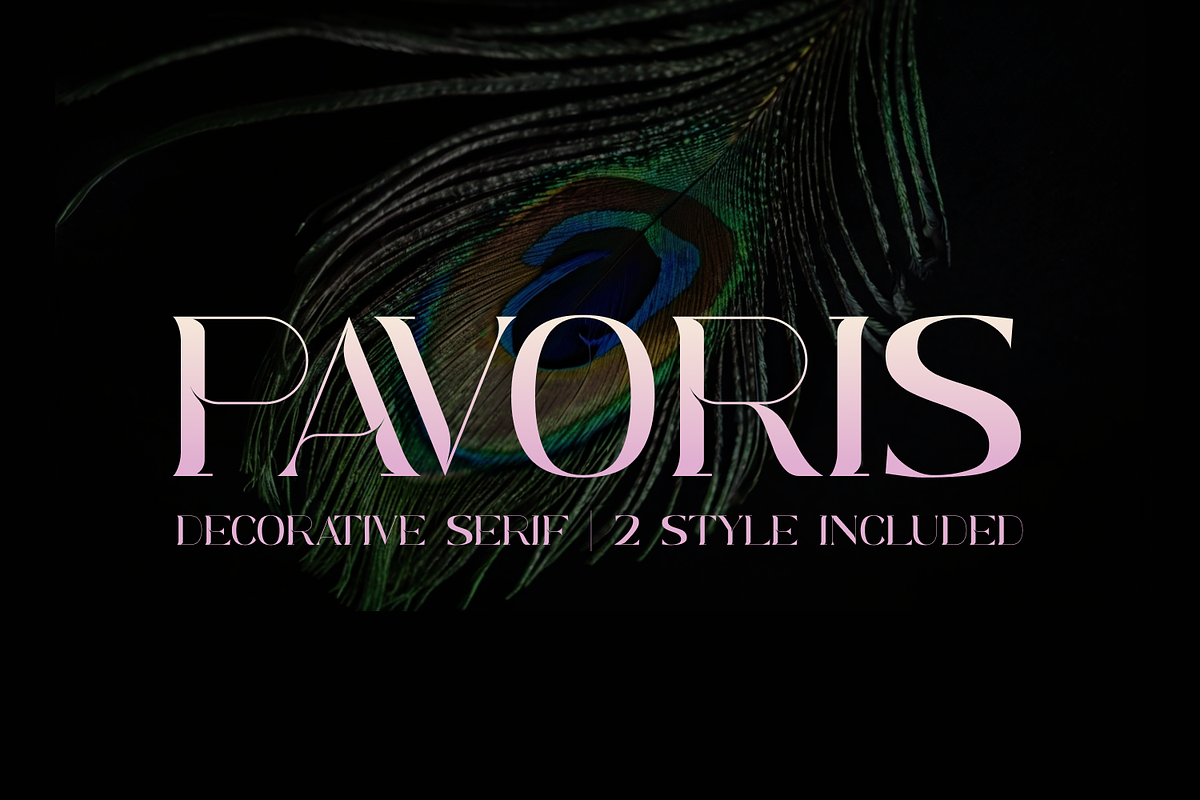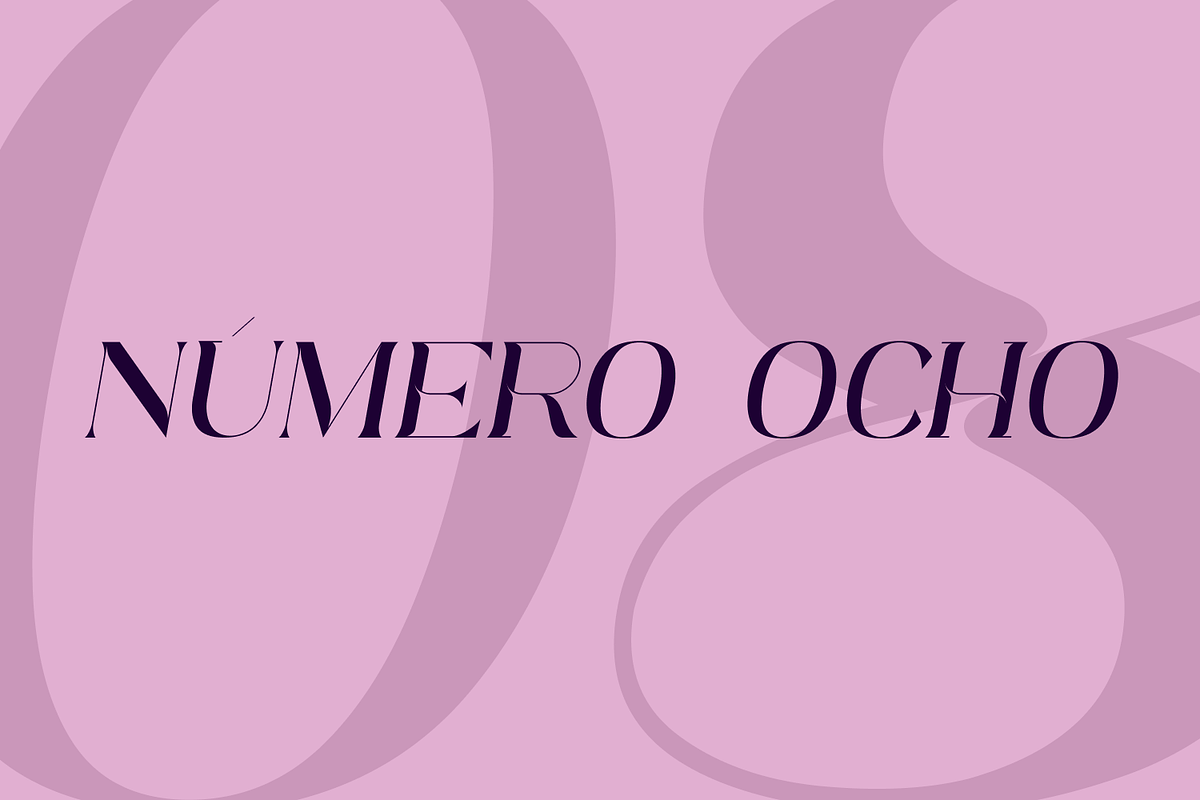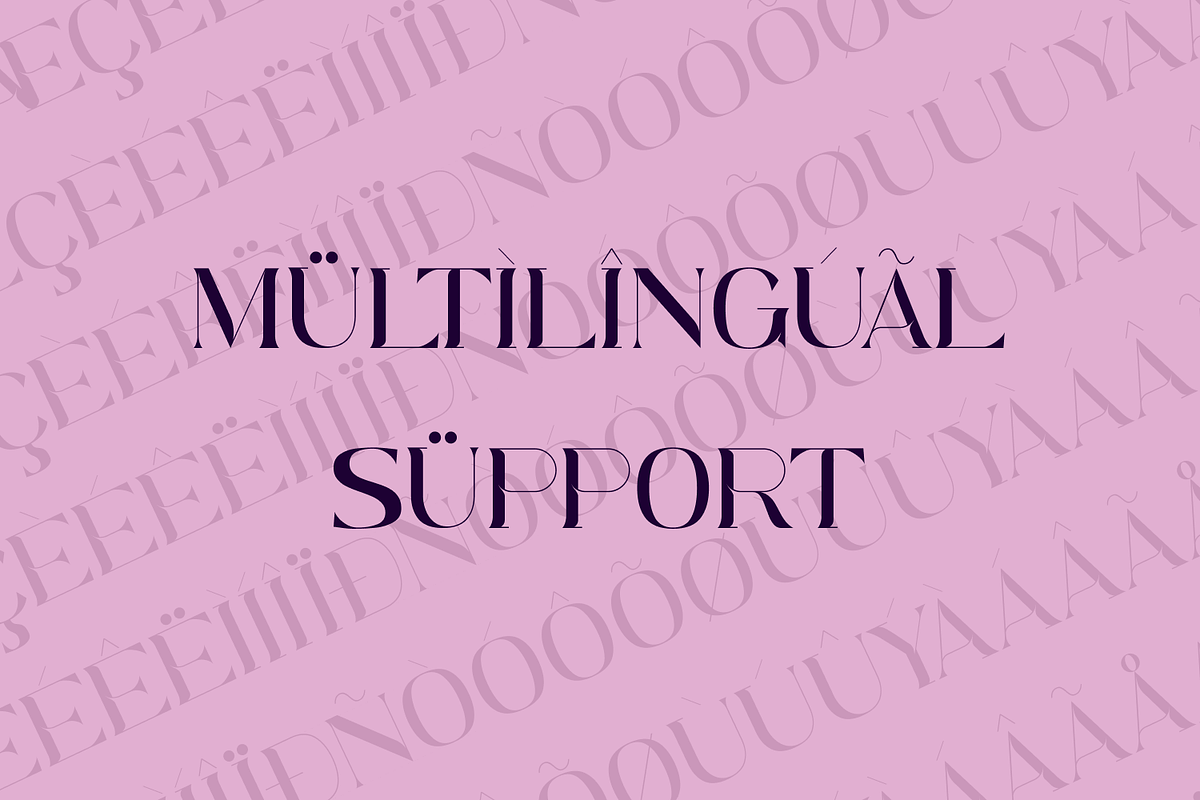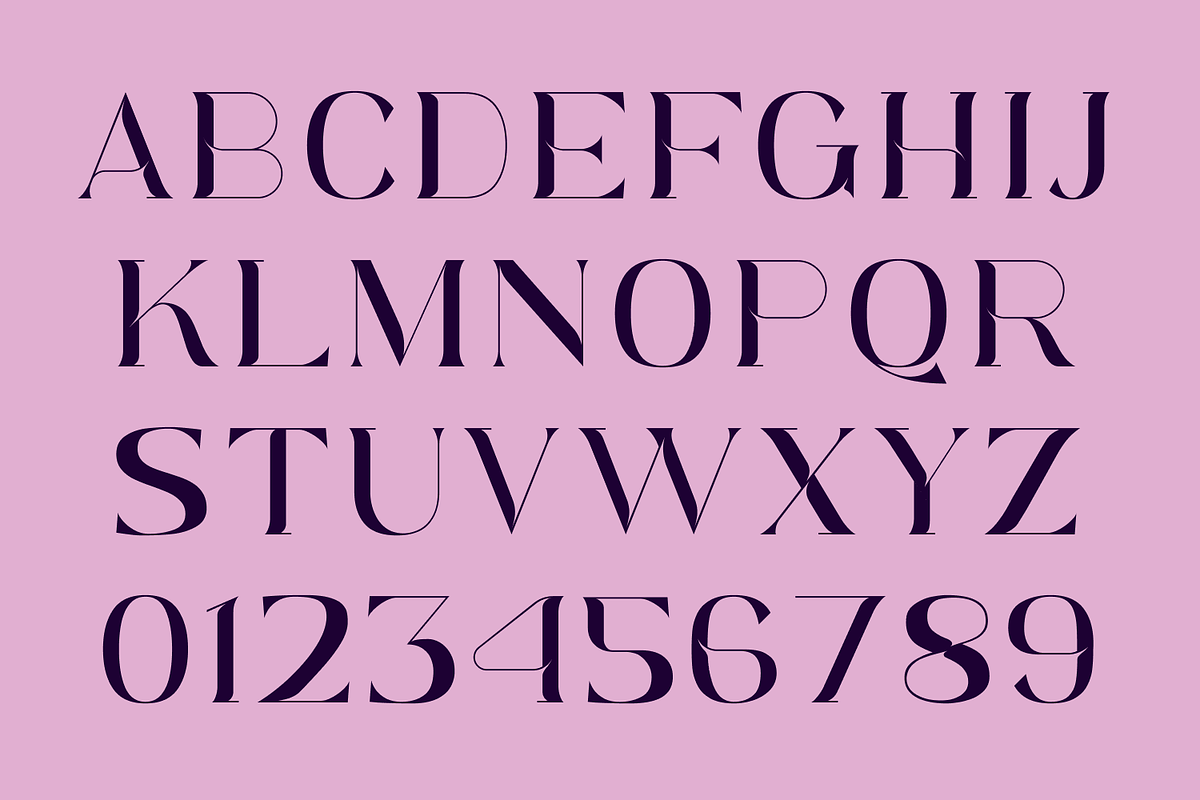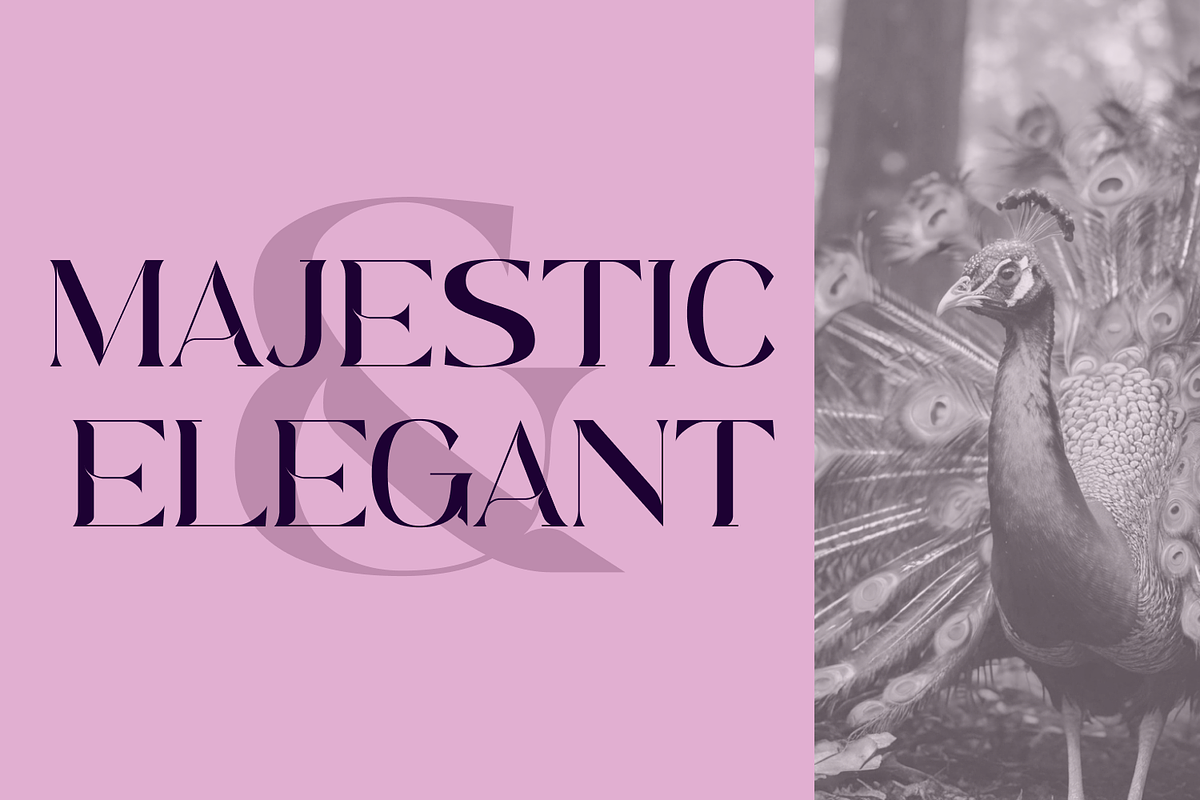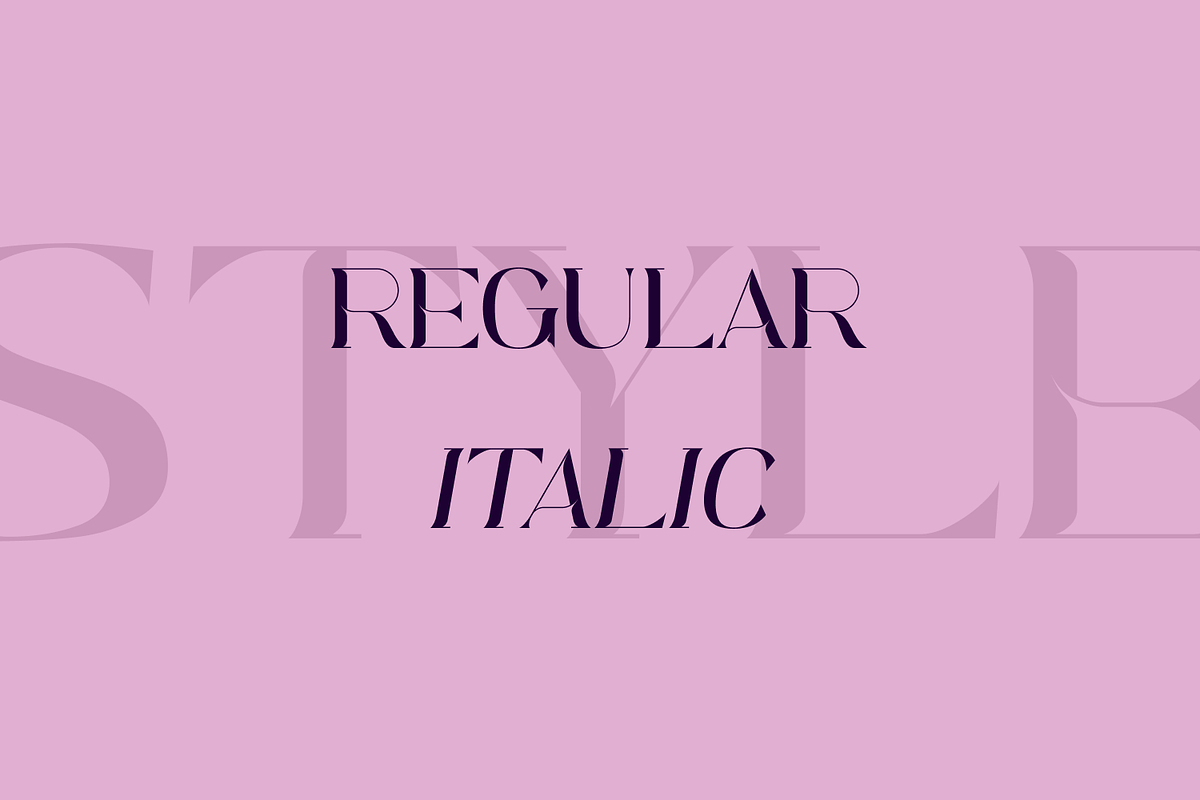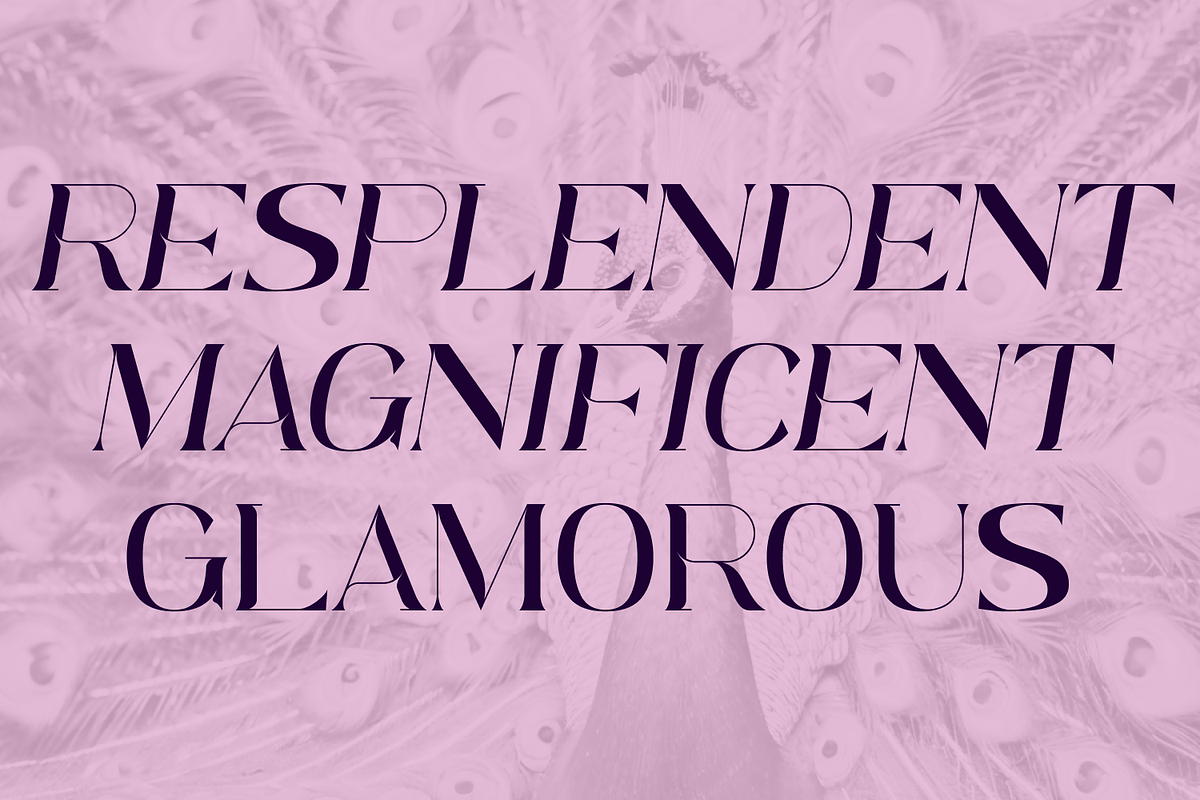
Pavoris
Pavoris is a sophisticated serif font family that exudes elegance and refinement. Exclusively featuring uppercase characters, Pavoris is designed to make a bold statement while maintaining a sense of classic grace. This font family includes two distinct styles: Regular and Italic, providing versatility for various design applications. The elegant serif design of Pavoris is perfect for projects that require a timeless and prestigious aesthetic.
Ideal for a wide range of uses, Pavoris shines in editorial design, luxury branding, and print materials like wedding invitations and event programs. Its meticulously crafted details and balanced proportions make it an excellent choice for designers seeking to convey sophistication and class. Whether you're designing magazine covers, high-end product packaging, or elegant websites, Pavoris adds a touch of timeless elegance to any project.